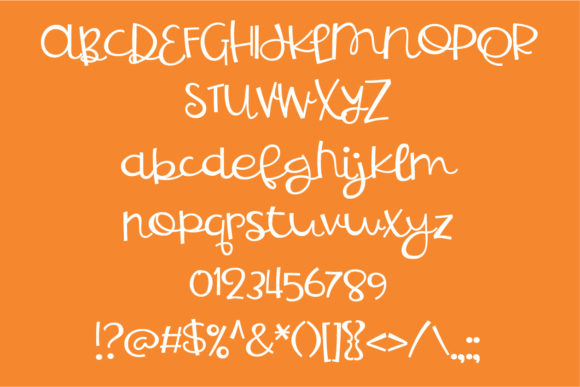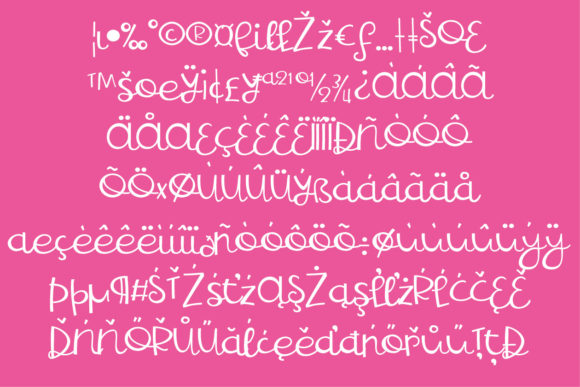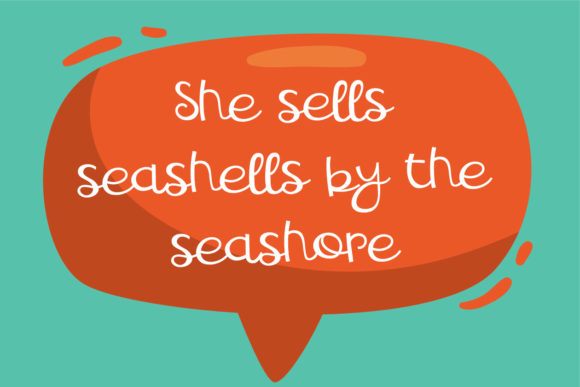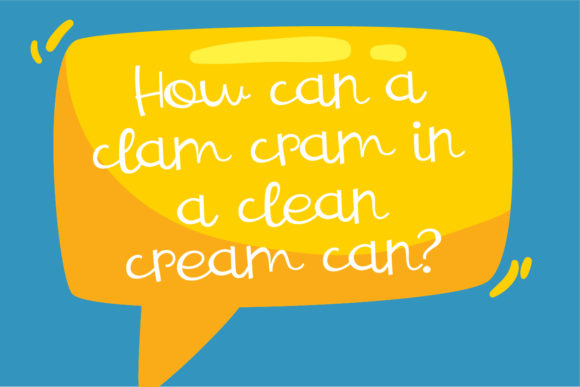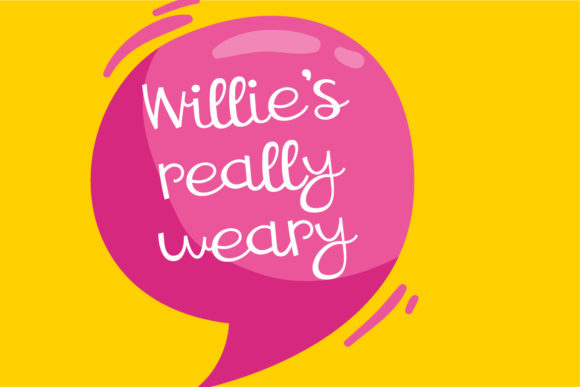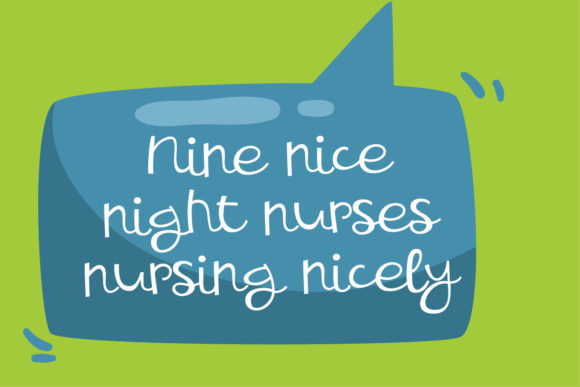
ZP Say Why Font
About ZP Say Why Font
Say Why is a casual and cute handwritten font. Clean and a little bit quirky, this font is the perfect fit for all of your logos, branding, social media, and crafty DIY projects.